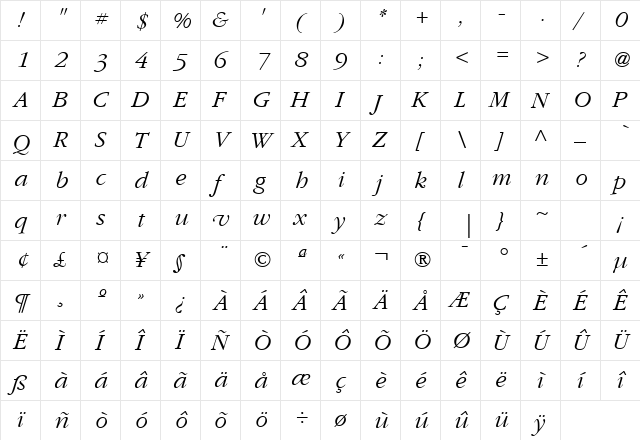
GarryMondrian3 LightItalicSH
Design Context for GarryMondrian3 Typeface
GarryMondrian3 is a composed and adaptable typeface that performs quietly and consistently across a wide range of design contexts. Its italic angle brings a sense of urgency and motion to the letterforms. Its slender proportions lend an understated elegance to any composition.
Pro Tip: Use GarryMondrian3 for emphasis, pull quotes, and subheadings where its slanted energy can add rhythm to the layout.